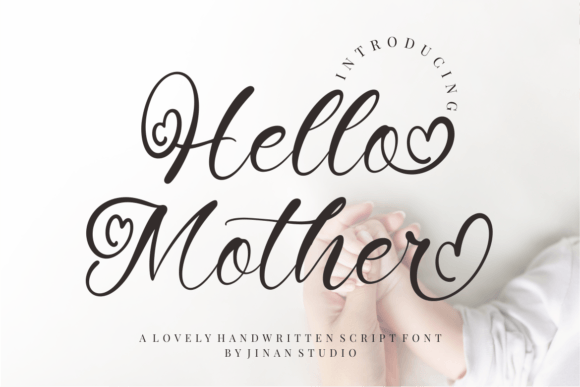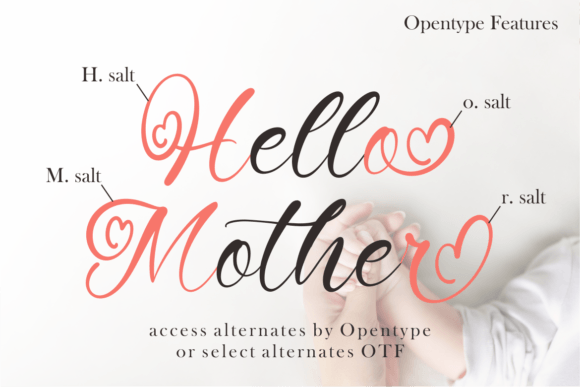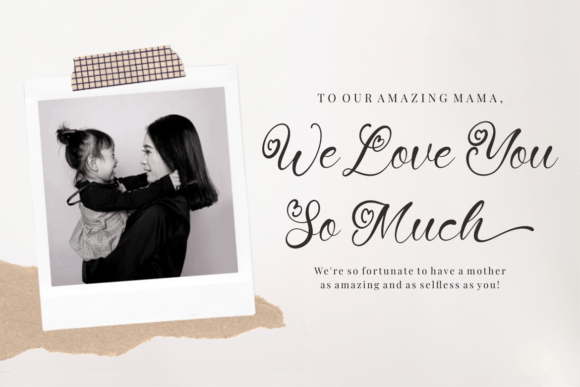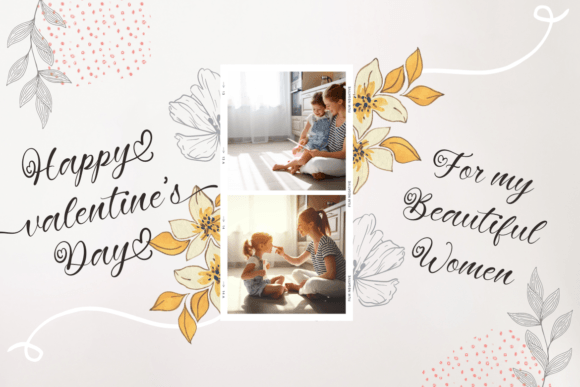
Hello Mother Font: Elegant Handwritten Script for Wedding & Logo Design
About the Hello Mother Font
The Hello Mother Font offers a perfect balance of form and function for your design needs. Hello Mother is a lovely, stylish, and greatly detailed handwritten font. Very suitable for your Mother’s Day theme design, valentine, wedding, photography, and logos. This font will guarantee a romantic touch to each of your creations! This font is PUA encoded which means you can access all of the amazing glyphs and ligatures with ease!
Hello Mother’s elegant, detailed script is ideal for short headlines, branding projects requiring a romantic touch, and invitations. It excels in logo design and works well for short, impactful quotes within larger layouts. However, its intricate details make it unsuitable for body text or UI elements where readability is paramount. Avoid using it in long paragraphs or for small sizes.
Its delicate nature pairs well with clean sans-serif fonts like Montserrat or Lato for a balanced contrast, or with a more playful, rounded sans-serif such as Playfair Display for a cohesive, yet varied feel. A modern geometric sans-serif like Futura could also create an interesting juxtaposition, adding a touch of boldness to the overall design.
The font projects a sophisticated, romantic personality, best suited for brands focused on luxury, beauty, weddings, or other similar niche markets. Its inherent charm makes it unsuitable for projects requiring a strong, assertive visual identity.